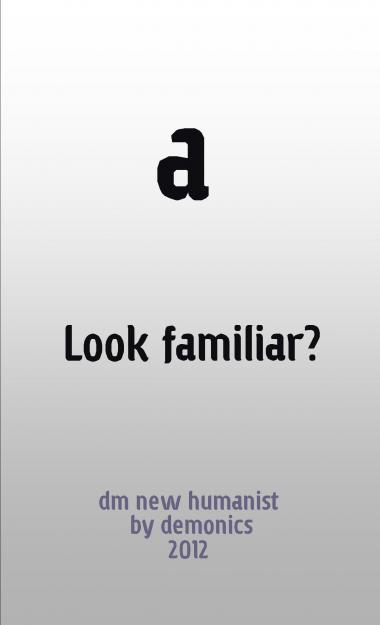
This is the 20000th FontStruction! meek, you must be proud. Your website, up to 20000 fonts! I have been working on this for months and I believe it to be my most advanced work yet. Yes, my avatar was made with this a. Also, it's clonable.
I originally made this work under adl, but I left the account. So I got to do the very exciting task of having two fontstructor windows open at once and transferring the font from adl to demonics glyph by glyph. Oh, and I forgot to paste djnippa's tool in there first, so now I have hundreds of composites lying around in no order whatsoever. Silly me.
Wow, S v y are ugly. I'll need to fix that. Well, that's that.
Spacing is also a bit off and the font looks horrible in Word, for some unknown reason. I'll work on that issue.
I'm proud of myself because this is my fourth attempt at a large-scale faux bezier font and it might just work.
Lastly, the font's name progressed like this over the 6+ months I've been working on New Humanist:
New Humanist Rounded
New Humanist Bold
+new humanist bold
dm New Humanist
Just a fun fact.
Anyway, serif and non-rounded versions coming soon!
Wow, I'm really excited about this one. I also think A needs revising, and I'd like suggestions on how I can do that. Thanks! What does everyone think? I spent a long time on the a.
I noticed recently that the 20000th number is coming up, but forgot to aim for that. Congrats for getting the landmark! And good job on the font. The A could perhaps be slightly narrower, but otherwise it seems fine.
@Yautja Thanks, and many letters (X v y S and more) are just unacceptable, so I'll fix that sometime. I've been aiming for 20000 since it was at 16000 months ago.
The ONLY "bad" thing is: The spacing between R and S seems doesn't right.
why would it affect me ? That was just curiosity. Once again, i'm sorry if i hurt you in any way. Concerning the font, I've never been a great fan of "faux bezier", with some few exceptions. Here, i think I have difficulties to feel exactly if you want to go clean or to go rough. This in-between feel makes me uneasy, and the basic forms are a bit too "basic" for my taste. Using finally a similar method, even if on a more modest grid, i much more prefered what you had made with your fantastic "+stuck in granite", maybe more "inhuman" than this one, but much more of my taste. But it's only my own opinion, i'm sure you'll touch many people with this more accessible one. Though I must recognize that the K is really beautiful.
@neurone_error Thanks for the kind words about the K and stuckingranite. :)
I actually wanted to make this font both clean and elegant, and it has fallen just a bit short. I'll try to make it seem more smooth, and I planned every one of the characters to look somewhat like what it is now. Thank you for your concern though. :)
One suggestion though: Maybe the ink traps in the M and N are too pronounced?
Wow, beautiful! Doesn't look like it was made on FS. I'll clone and make my version :)